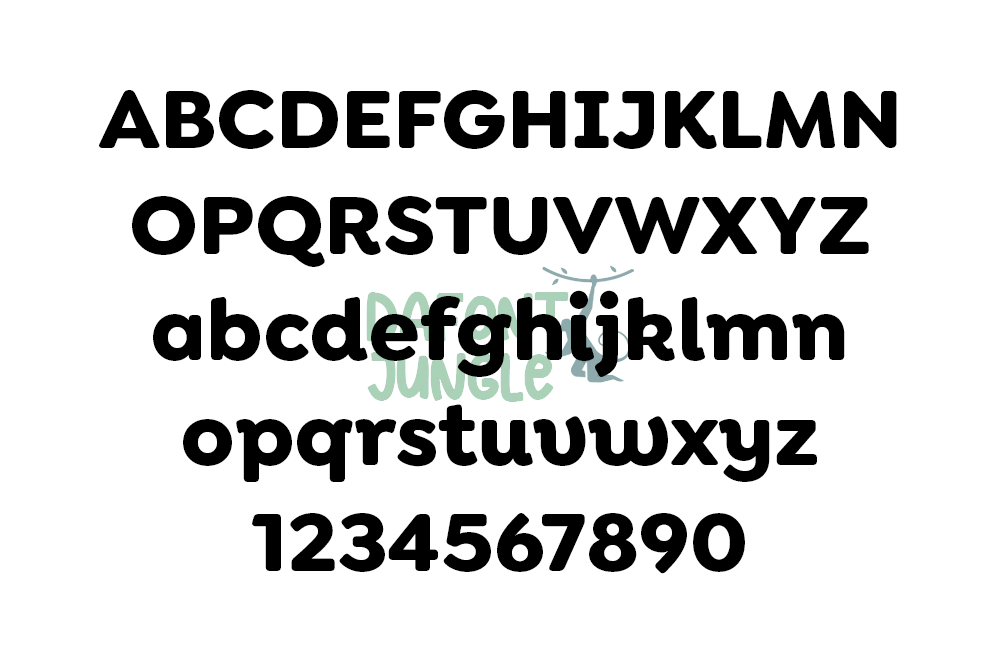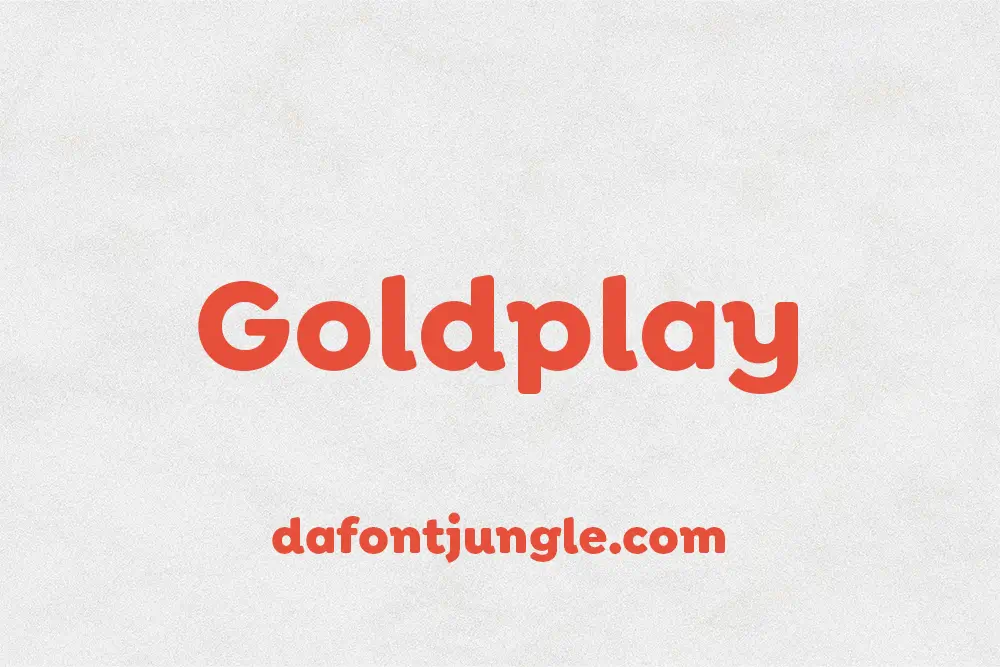
Goldplay – Rounded Sans Serif Font Family with a Modern Touch
Goldplay is a modern sans serif font family with soft, rounded terminals and a friendly, expressive feel. Inspired by the clean structure of Isidora Sans, it blends contemporary design with classic proportions. This makes it a versatile choice for both professional and creative projects.
The font features a large x-height, which adds elegance while improving readability. Whether you’re working on headlines, books, branding, or digital content, Goldplay adapts beautifully.
Two Versions for More Flexibility
Goldplay includes two styles, each with 7 weights from Thin to Black and matching italics—totaling 28 fonts.
- Standard Version: Clean and modern, ideal for books, magazines, web, TV, and corporate design.
- Alt Semi-Serif Version: More expressive, perfect for branding, logos, packaging, and bold statements.
Key Features
– Rounded terminals for a soft, modern look
– Large x-height for elegance and legibility
– 540 characters with support for 200+ Latin-based languages
– Works well in both print and digital formats
– Great for motion graphics, web design, and TV use